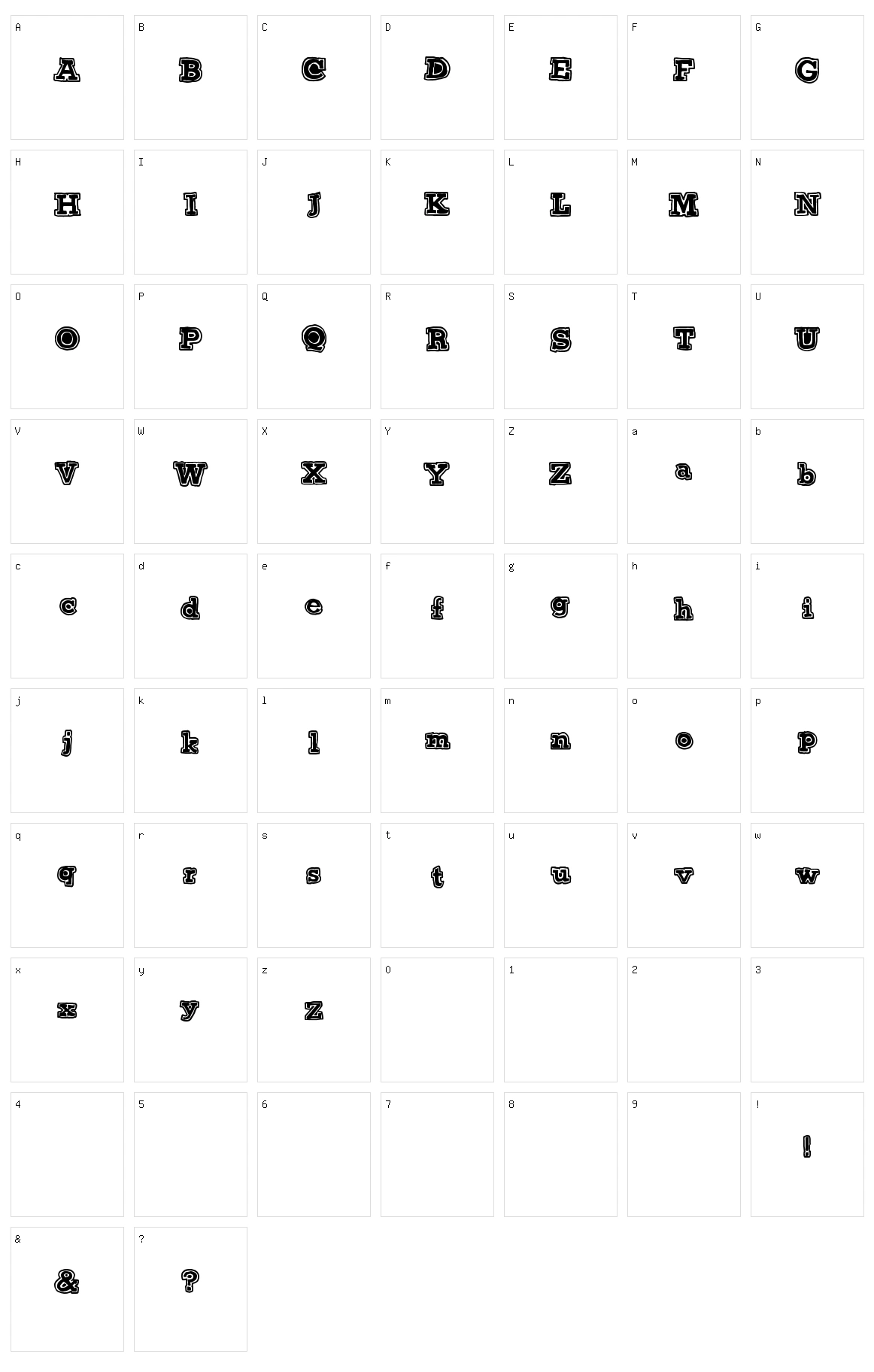
The free font Zero College is carefully designed by Xerographer Fonts, showcasing a thoughtful balance of creativity and usability and falls under the Old School font style. When you download the ZIP file, it contains only 33.95 KB of font files, making it lightweight and quick to download. Please review the license details below to understand permitted usage and distribution rights. If license information is not available, we recommend using this font for personal projects only or contacting the author directly for commercial usage permissions.